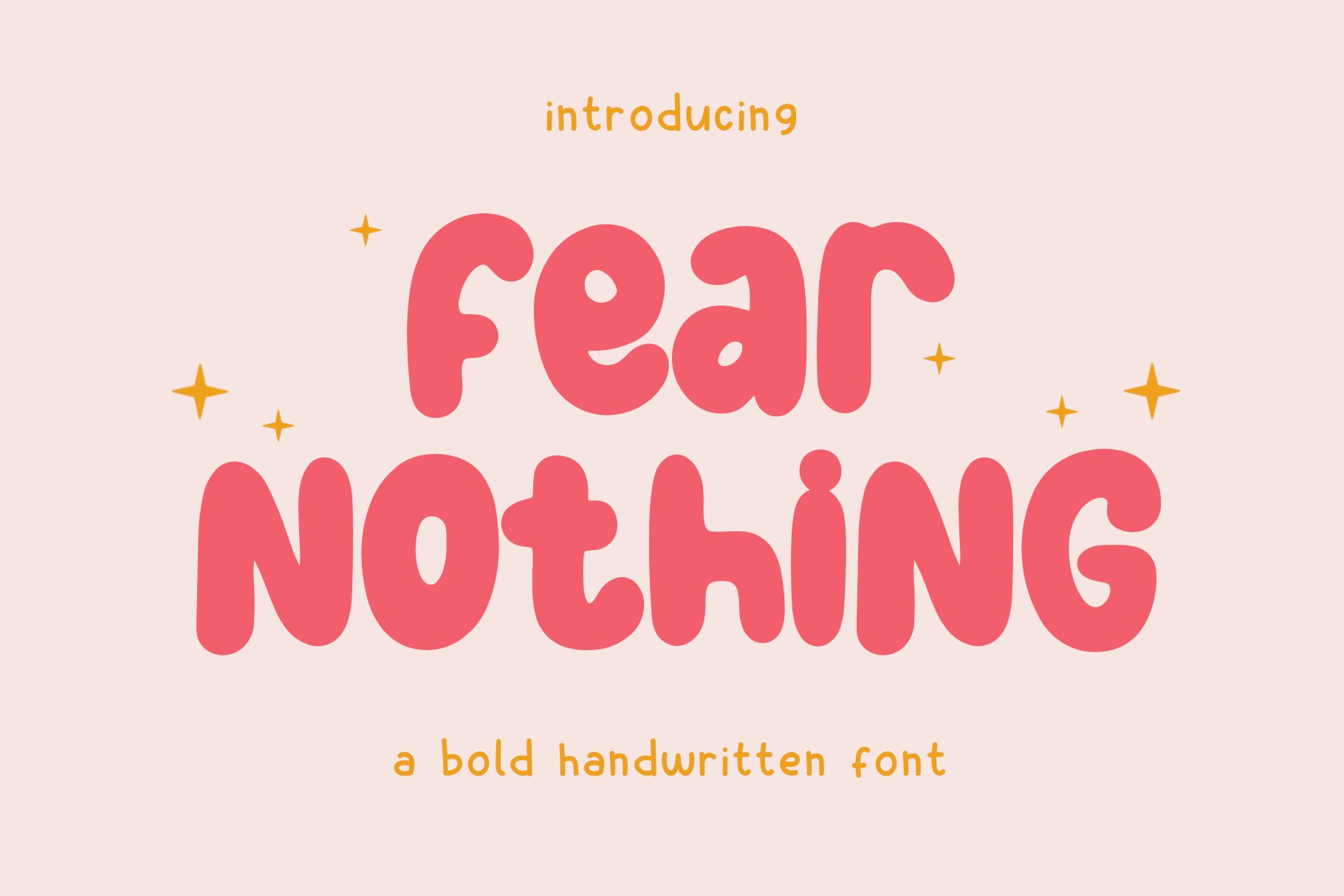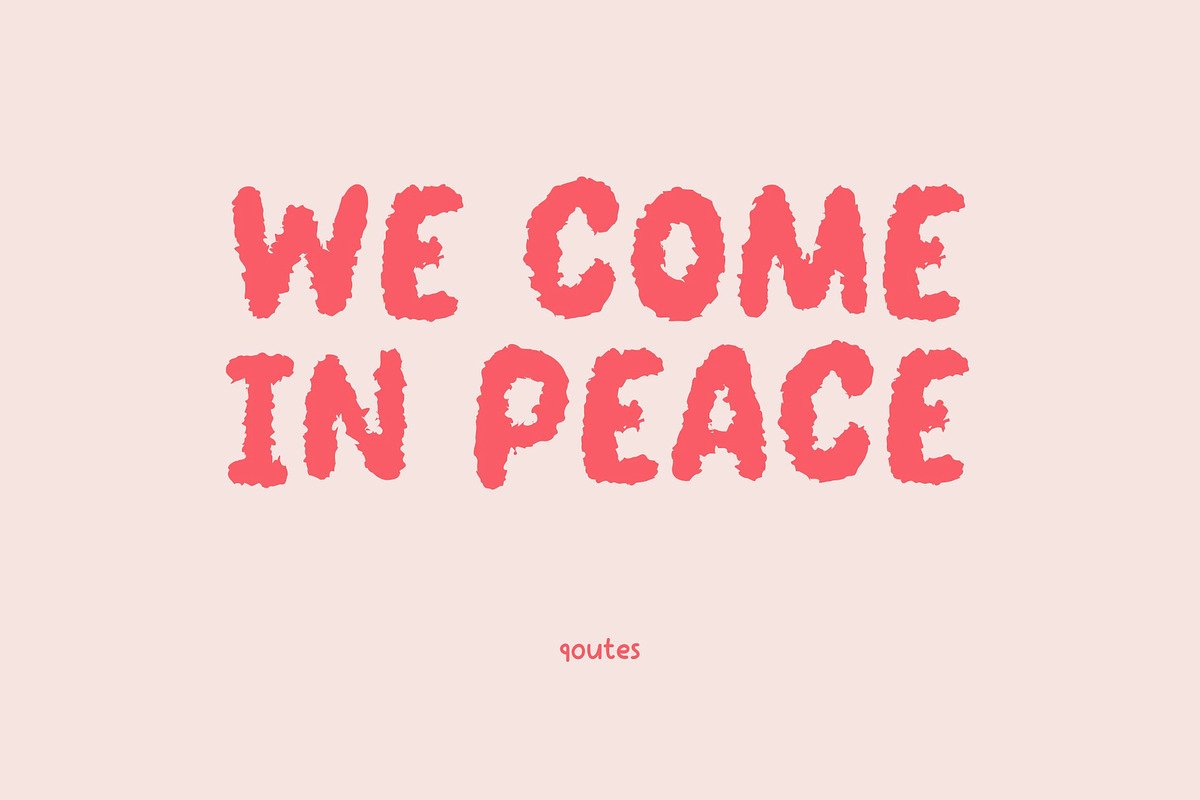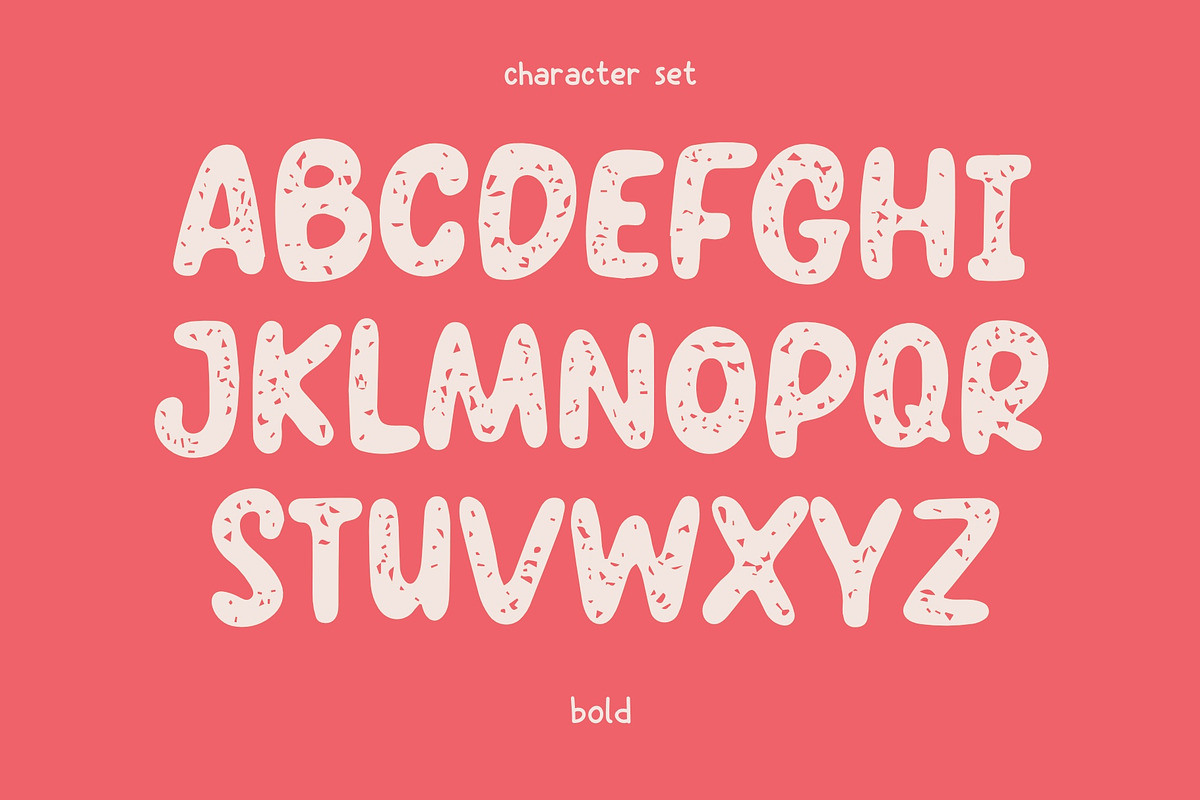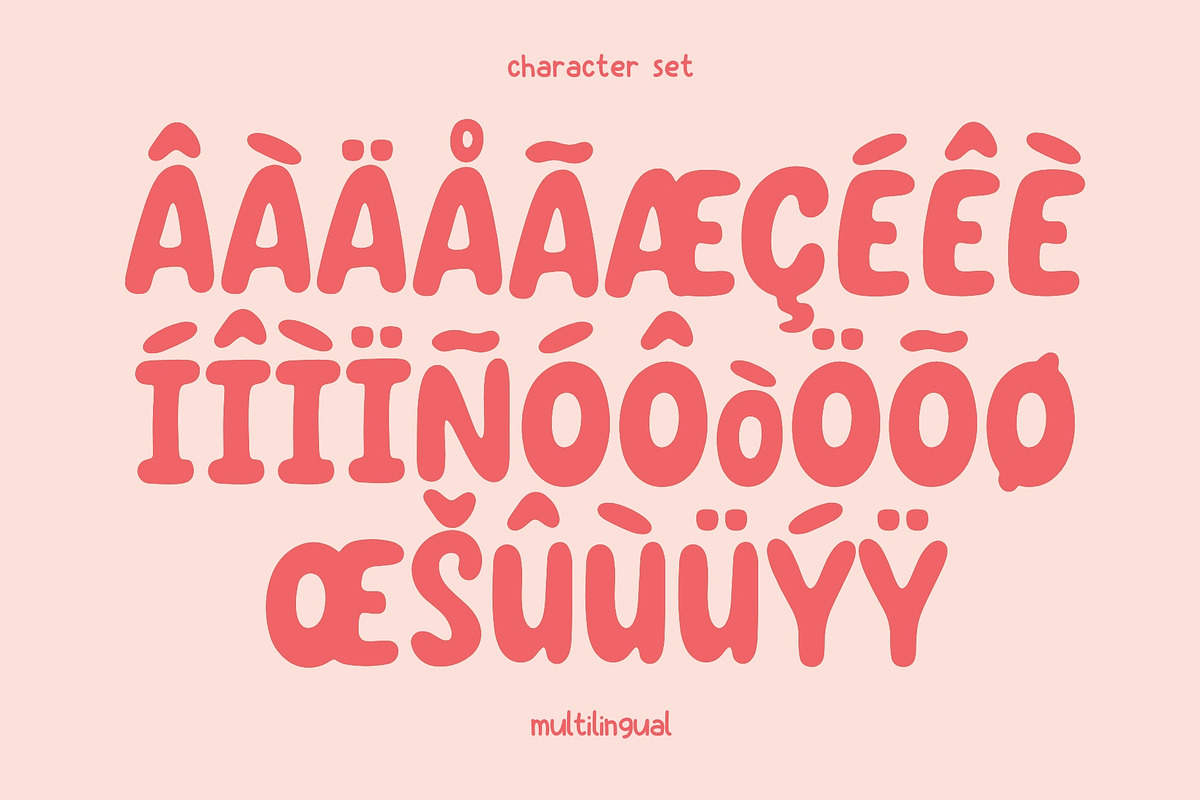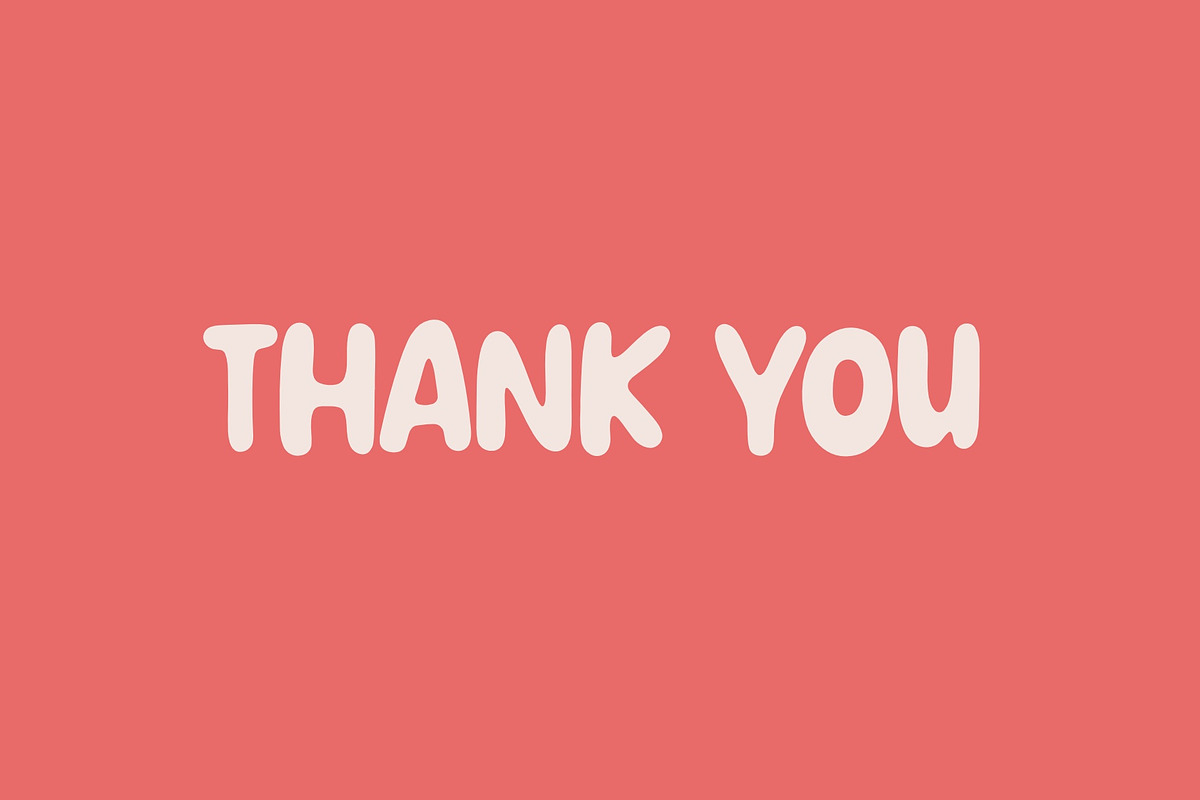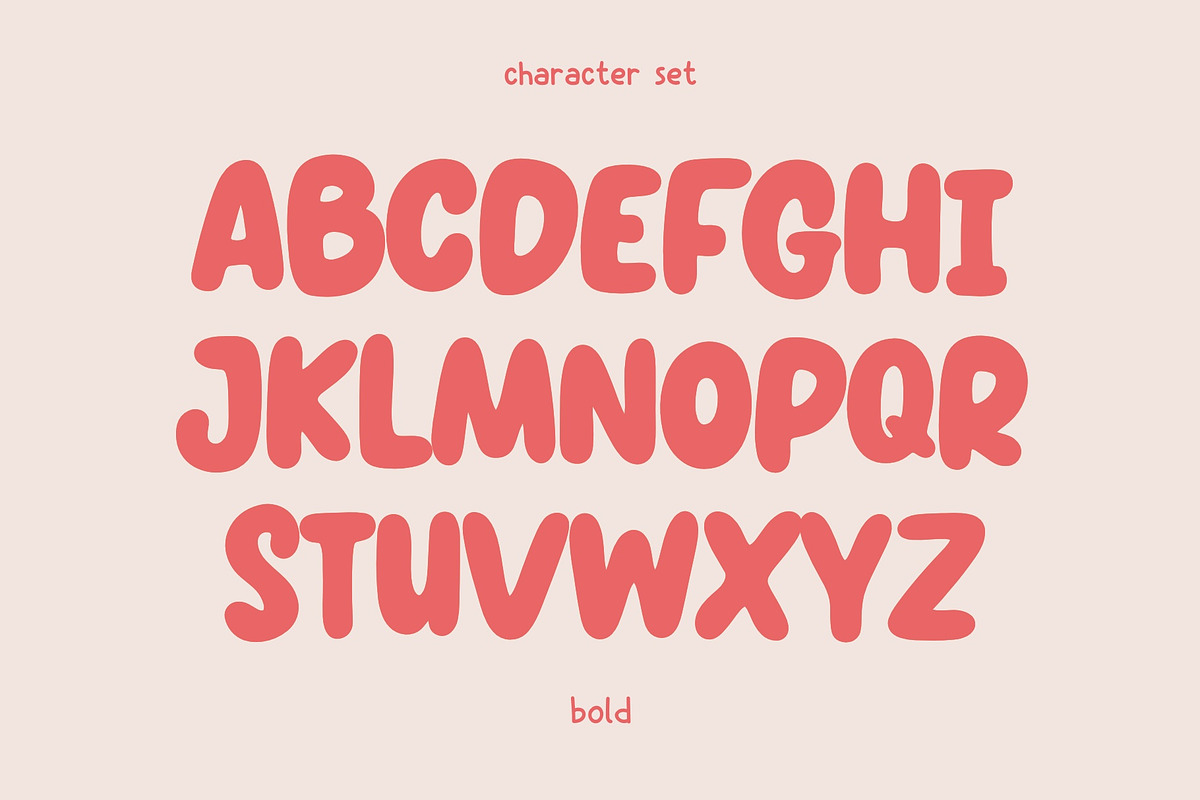
Fear Nothing Font - Sans Serif Font
Fear Nothing is a Sans Serif Font that exudes boldness and strength in every character. This typeface available in SVG format, compatible with advanced tools such as Cricut and Glowforge, and for use in Procreate. With its robust and assertive design, this typeface is tailored for those who seek to make a fearless statement in their visual communications.